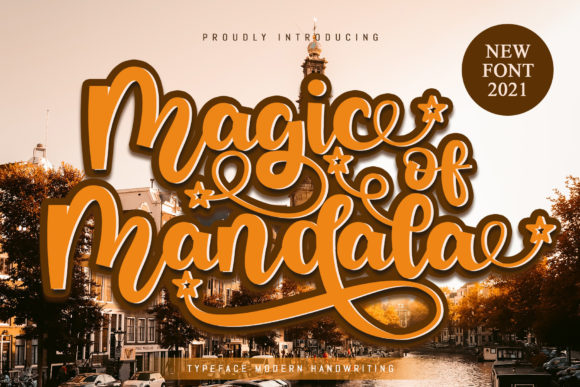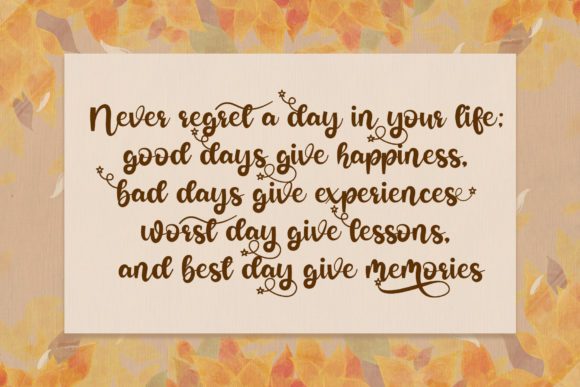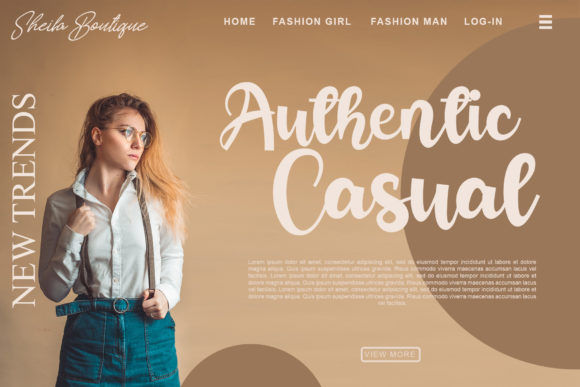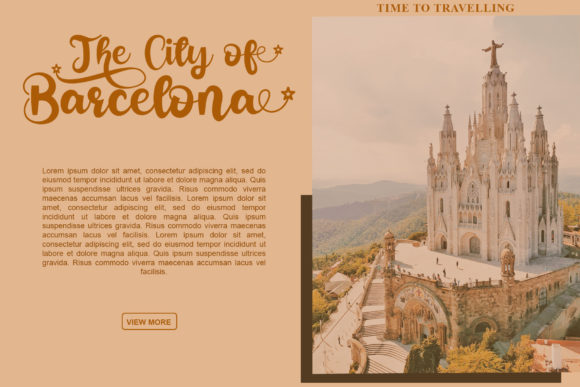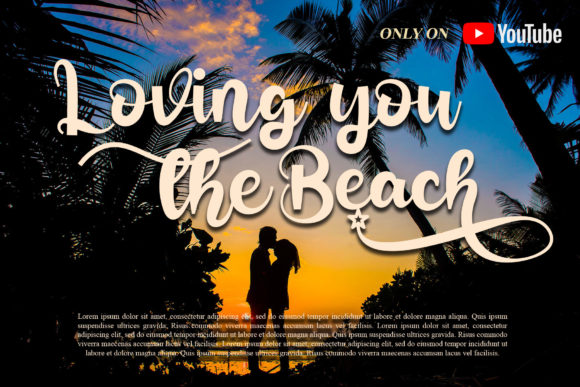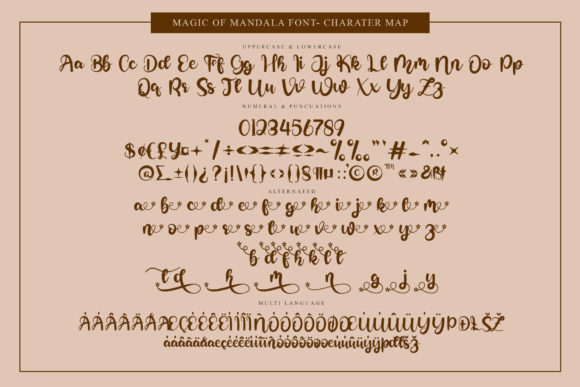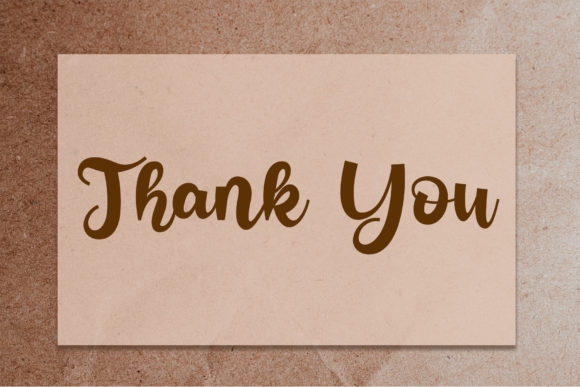
Magic of Mandala Font
About Magic of Mandala Font
Magic of Mandala is a lovely and timeless handwritten font. It is the best choice for creating eye-catching logos, branding, and quotes.